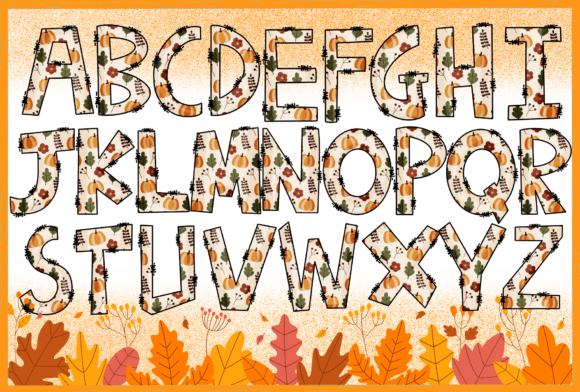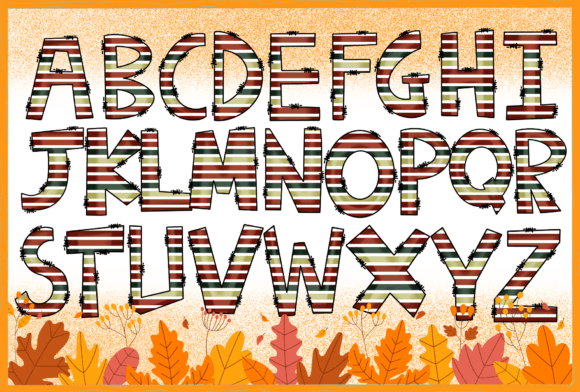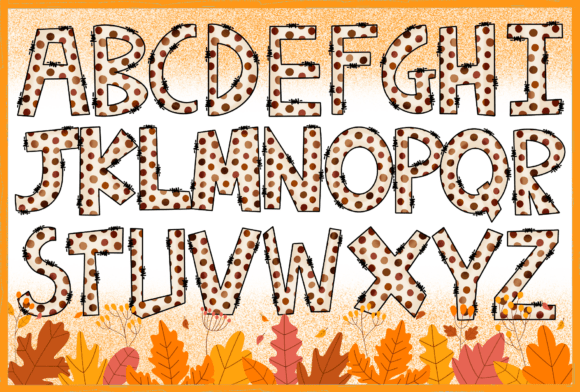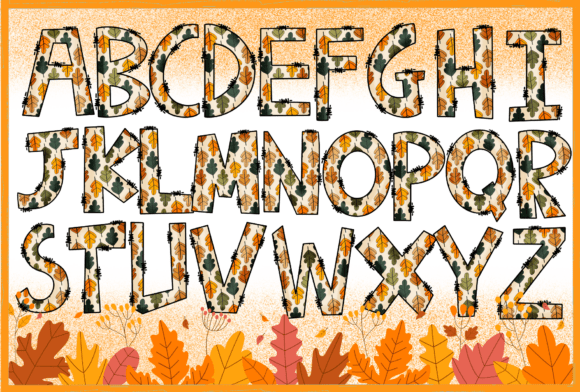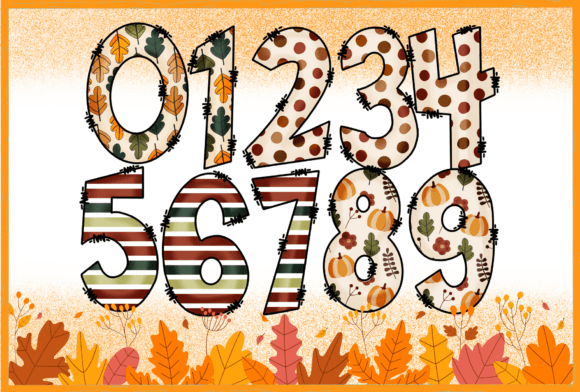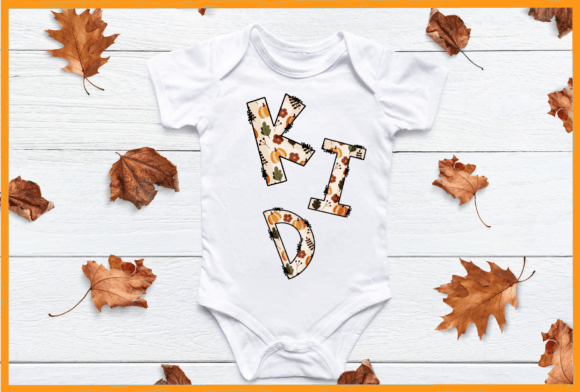
Fall into Creativity with the Cozy Fall & Autumn Font
As the leaves change colors and the air grows crisp, designers and crafters alike are on the lookout for inspiration to create warm and inviting projects. Look no further than the Fall & Autumn Alphabet Bundle, a delightful collection of letters filled with seasonal patterns like pumpkins, leaves, dots, and stripes in rich autumn tones.
What is the Fall & Autumn Font?
The Fall & Autumn Font is a playful and decorative alphabet bundle that captures the essence of the cozy fall season. Each letter is meticulously designed with warm, seasonal patterns that evoke feelings of nostalgia and comfort. The font features:
- Uppercase and lowercase letters
- Numbers and punctuation marks
- Rich autumn tones, including shades of orange, yellow, red, and brown
- Seasonal patterns like pumpkins, leaves, dots, and stripes
Perfect for Fall Crafts and Projects
Whether you’re a designer, crafter, or teacher, the Fall & Autumn Font is the perfect addition to your creative toolkit. Use it to add a personal touch to:
- Fall crafts, such as wreaths, garlands, and centerpieces
- Classroom decor, including bulletin boards, posters, and worksheets
- Scrapbooking projects, like photo albums and cards
- Thanksgiving invitations, decorations, and party favors
- Sublimation projects, such as custom mugs, tumblers, and iron-on designs
Why Choose the Fall & Autumn Font?
With the Fall & Autumn Font, you’ll enjoy:
- Customization: use the font to create unique and personalized projects
- Versatility: suitable for a wide range of applications, from digital to print
- Seasonal charm: add a touch of autumn magic to your creations
Tips and Ideas for Using the Fall & Autumn Font
Get the most out of the Fall & Autumn Font with these creative ideas:
- Combine with other fall-themed graphics, like illustrations or textures, for a cohesive look
- Experiment with different font sizes and styles to add visual interest
- Use the font to create custom signs, banners, or posters for fall events
- Pair with warm, autumnal colors to evoke a cozy atmosphere
Celebrate the cozy season with the Fall & Autumn Alphabet Bundle, a delightful font that’s sure to inspire your creativity. With its warm, seasonal patterns and rich autumn tones, this playful and decorative font is perfect for designers, crafters, and teachers looking to add a touch of fall magic to their projects. Download the Fall & Autumn Font today and get ready to fall into creativity!